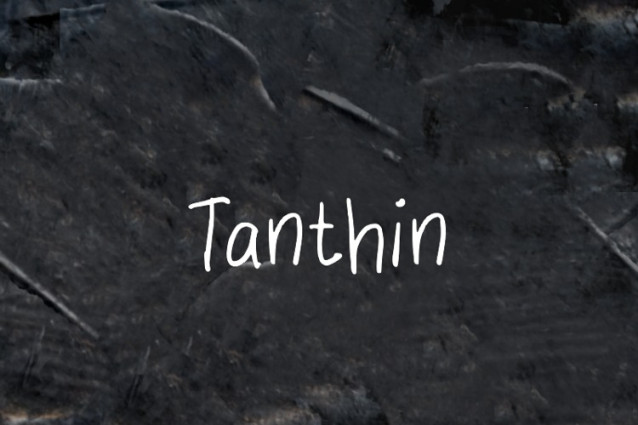
Tanthin Handwriting Font
Tanthin Handwriting Font is a simple and friendly handwritten font. Its natural and unique style makes it incredibly fitting to a large pool of designs. The only limit is your imagination!